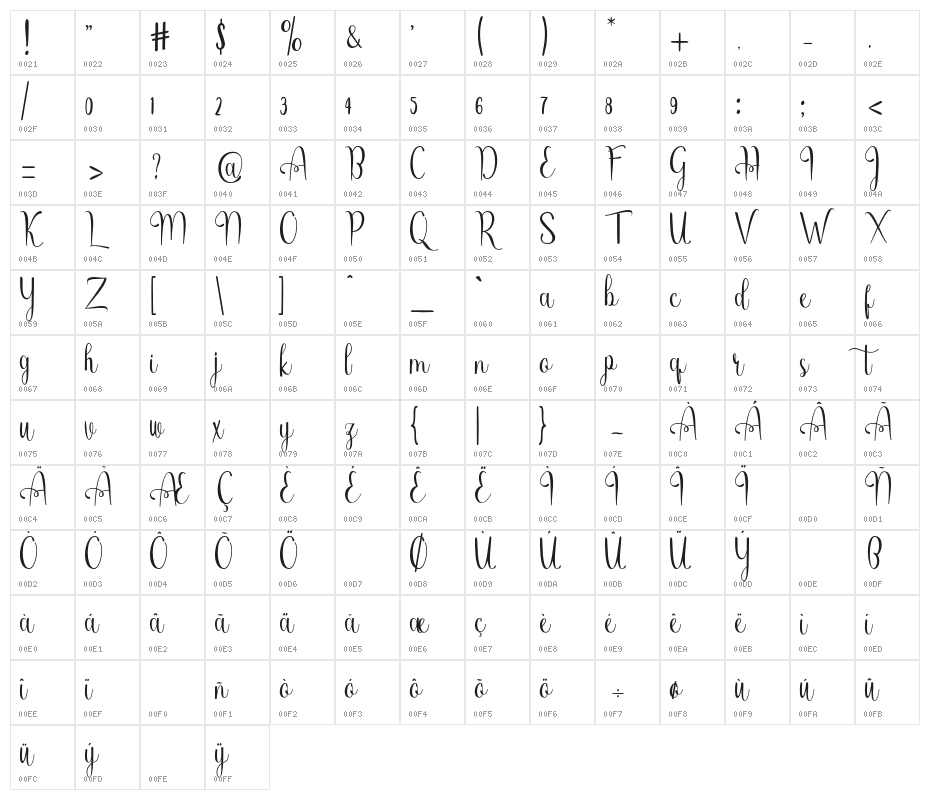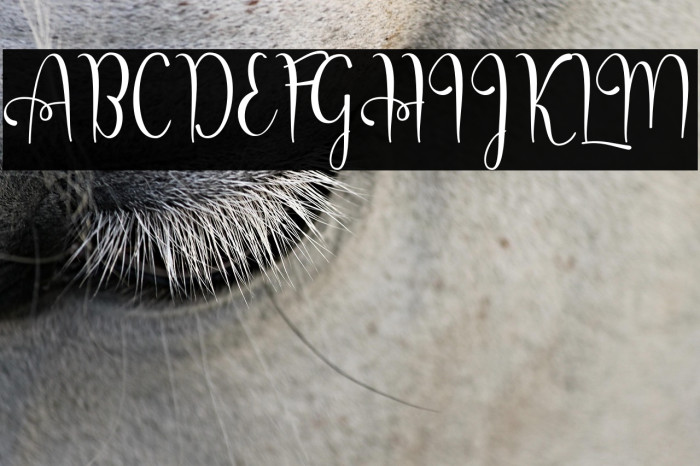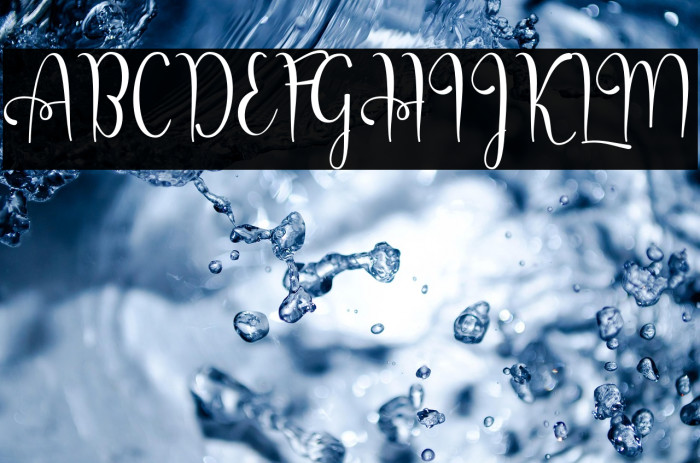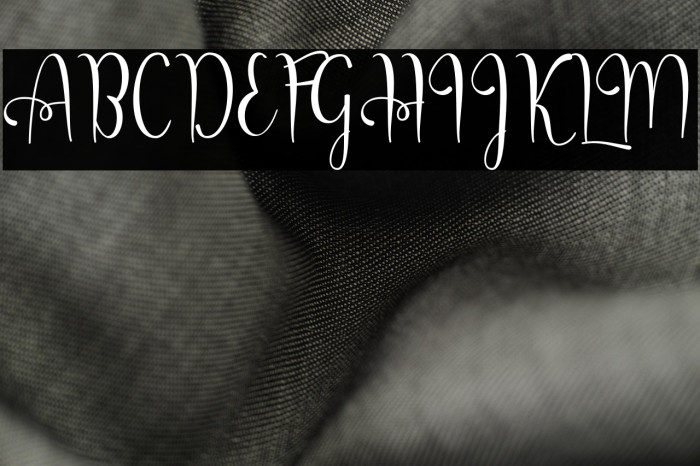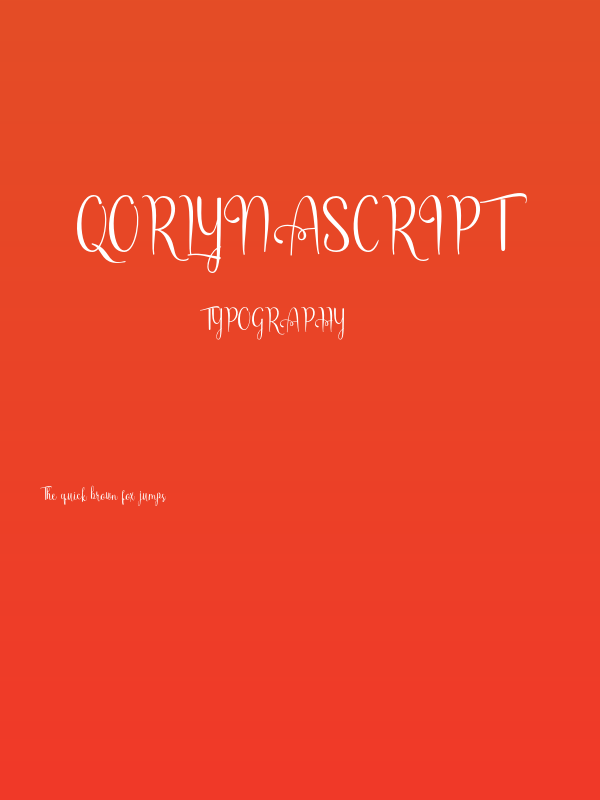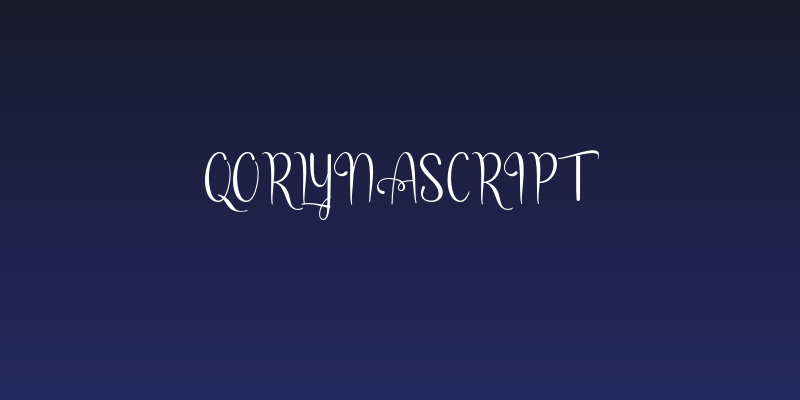
QorlynaScript Font
QorlynaScript Description
This elegant script font features a flowing, cursive style with intricate loops and swashes that give it a sophisticated and artistic appearance. The uppercase letters are tall and slender, with graceful curves and decorative elements that enhance their visual appeal. The lowercase letters maintain a consistent flow, connecting smoothly to create a harmonious and fluid text. The numerals are styled to match the overall script aesthetic, adding a touch of elegance to any numerical display. Special characters are thoughtfully designed to complement the font's ornate style, making it suitable for creative and decorative projects.